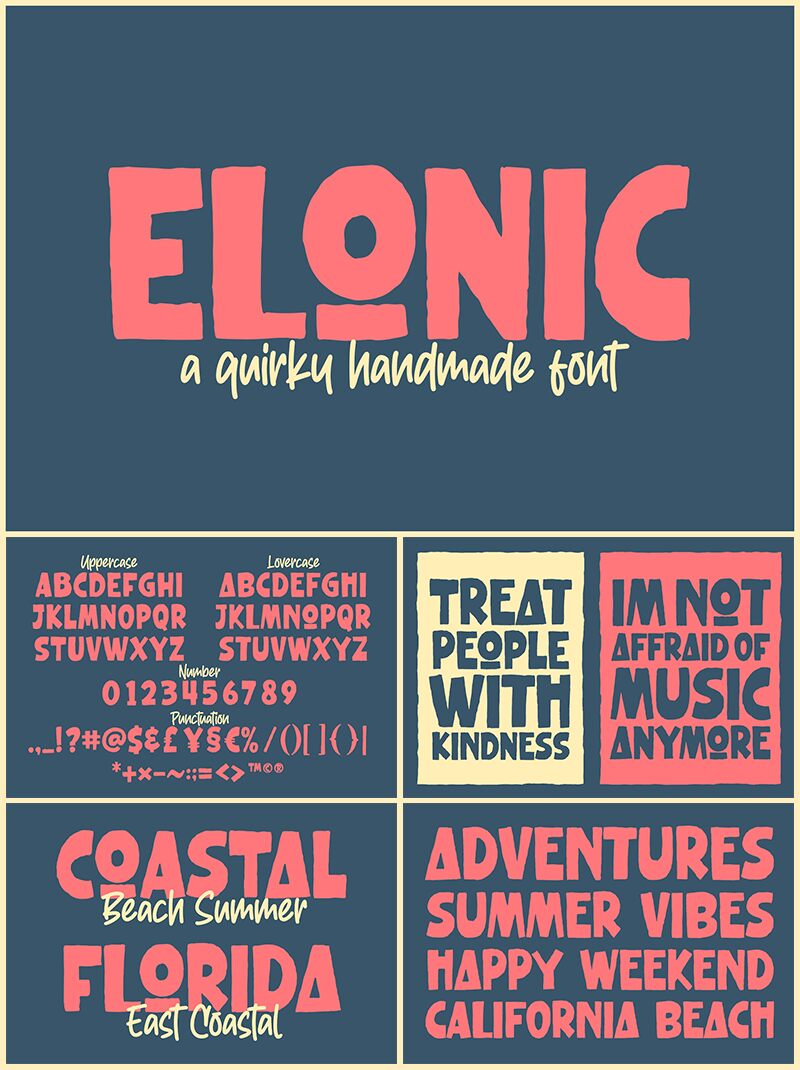
Elonic font designed by Blankids is a free font that flaunts a simple letter design that appears handmade. Its letters seem irregularly shaped and bring about a cartoonish feel which makes them a superb pick for casual projects. Despite its minimalistic style, Elonic is a font containing all the letters of the English alphabet as capital letters along with a couple of useful other characters.
Elonic is best used for projects that need eye-catching text. This includes poster design, social media posts, logo design, stationery design, apparel design, wall art and prints, signage, product labeling, branding, and packaging. The font can also be used for both back and front cover design for books and journals.